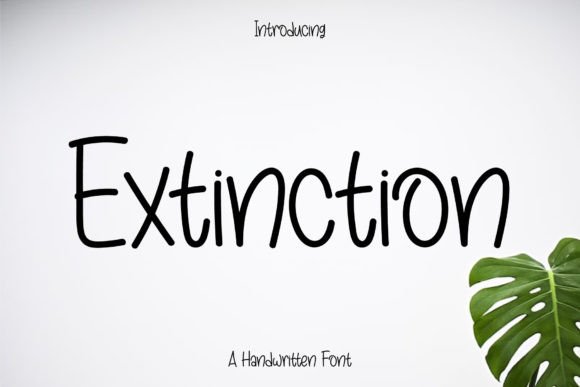
Introducing Extinction Font: A Simple yet Joyful Handwritten Font
The world of typography is vast and diverse, with countless font styles to choose from, each with its unique character and charm. Among these, handwritten fonts hold a special place, as they bring a touch of warmth and personality to any design. One such font that has caught the attention of designers and typography enthusiasts alike is the Extinction Font. In this article, we’ll delve into the features, benefits, and uses of this beautiful font, exploring what makes it stand out in the world of typography.
What is Extinction Font?
Extinction Font is a simple, joyful handwritten font that has captured the hearts of many with its casual charm. Its down-to-earth feel makes it incredibly readable, while its versatility allows it to shine in various contexts. Whether you’re looking to create a stunning headline or add a personal touch to your text, Extinction Font is an excellent choice.
Key Benefits of Extinction Font
- Readability: The font’s clear and simple design ensures that it remains readable even in small sizes or on busy backgrounds.
- Versatility: Extinction Font can be used in a wide range of applications, from headlines and titles to body text and captions.
- Uniqueness: The font’s handwritten nature gives it a distinct personality that sets it apart from more traditional fonts.
- Emotional Connection: The casual, friendly feel of Extinction Font helps create an emotional connection with the reader, making it ideal for designs that aim to engage and inspire.
Using Extinction Font: Tips and Ideas
Extinction Font’s versatility makes it suitable for various design projects. Here are some ideas and tips on how to make the most of this beautiful font:
Headlines and Titles
Extinction Font shines as a headline font, adding a touch of personality and whimsy to your titles. Its bold and playful nature makes it perfect for grabbing attention and creating a lasting impression.
Body Text and Captions
While Extinction Font excels as a headline font, it’s also suitable for body text and captions. Its readability and clear design make it an excellent choice for longer blocks of text, especially when you want to add a personal touch to your content.
Branding and Identity
Extinction Font can be a valuable asset for brands looking to create a unique and memorable identity. Its friendly and approachable nature makes it perfect for brands that want to convey a sense of warmth and approachability.
Digital and Print Media
Extinction Font is suitable for both digital and print media. Its clear design and readability make it an excellent choice for digital platforms, while its unique personality shines in print materials, such as brochures, posters, and business cards.
Extinction Font vs. Other Handwritten Fonts
With so many handwritten fonts available, it’s essential to understand what sets Extinction Font apart from the rest. Here’s a comparison with other popular handwritten fonts:
What Designers Say About Extinction Font
| Font Name | Extinction Font |
| Author | Wanida Toffy |
Extinction Font is a simple yet joyful handwritten font that offers a unique blend of readability, uniqueness, and versatility. Its casual charm makes it appear wonderfully down-to-earth, readable, and incredibly versatile. Whether you’re looking to create stunning headlines, engaging body text, or memorable brand identities, Extinction Font is an excellent choice. With its wide range of applications and benefits, it’s no wonder that Extinction Font has become a favorite among designers and typography enthusiasts alike.